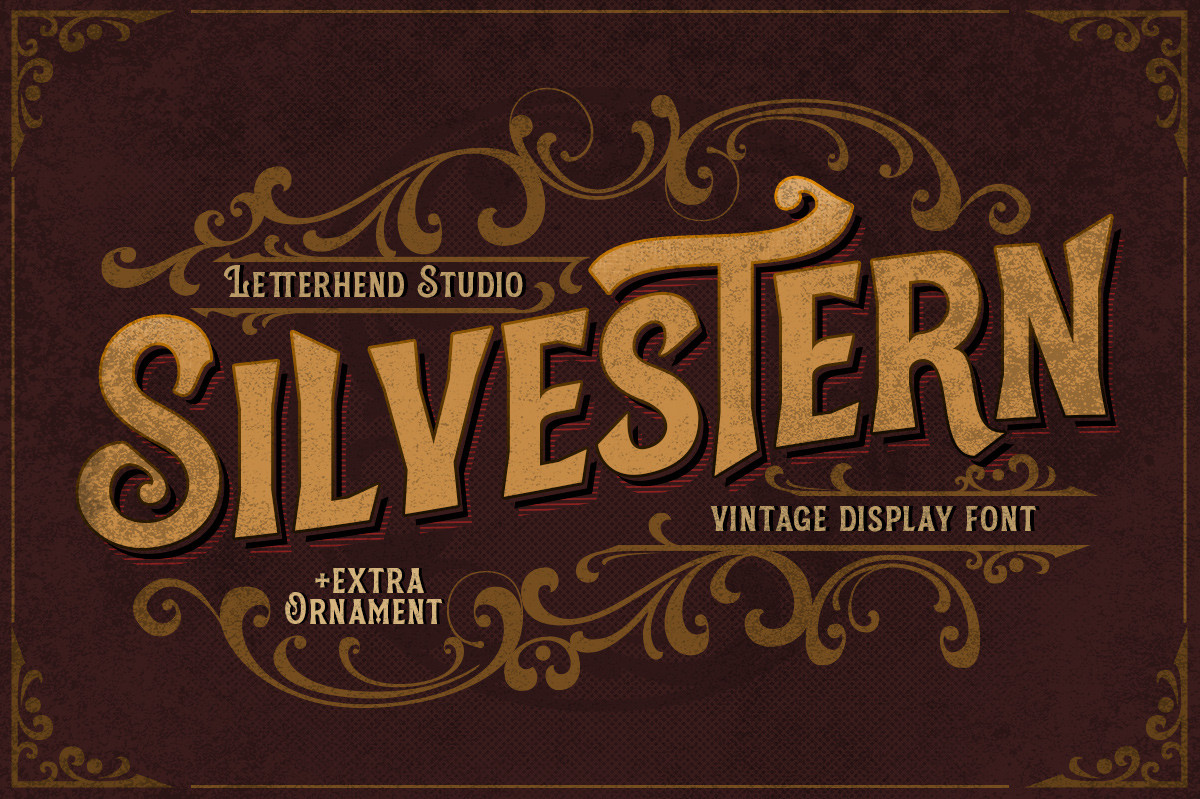
Silvestern Font
Silvestern Font is perfect for New Year's Eve party invitations, celebration event branding, festive marketing campaigns, holiday party planning materials, midnight countdown graphics, champagne brand packaging, year-end corporate celebrations, festive restaurant promotions, holiday entertainment venues, and sparkling social media designs. This celebratory typeface brings glittering sophistication to fireworks display advertising, luxury party planning services, festive hotel marketing, celebration catering companies, and elegant holiday event communications.
Silvestern Font is exciting because it captures the sparkling magic and celebratory elegance of New Year's Eve festivities through its brilliantly crafted letterforms. The font features characters with festive details and celebratory proportions that evoke the glittering atmosphere of midnight celebrations, sparkling champagne toasts, and the hopeful anticipation of new beginnings. Its distinctive construction demonstrates festive sophistication with carefully crafted elements that create an immediate sense of celebration and elegant party atmosphere. The font's celebratory charm and festive authenticity make it perfect for brands seeking to communicate joyful celebration, elegant festivities, and hopeful new beginnings in their visual communications.
The Silvestern Font family includes various celebratory styles: Light, Regular, Medium, Bold, Italic, Sparkling, Glitter, Festive, Condensed, Extended, Elegant, and Celebration variants. Each family member maintains the core festive DNA while offering different levels of celebration for diverse party-themed design applications. The comprehensive font collection ensures consistent celebratory branding across holiday campaigns, festive events, and New Year celebration materials.
Silvestern Font Free Download provides designers with an exceptional tool for creating memorable and festively elegant visual communications. This remarkable typeface seamlessly blends celebratory aesthetics with contemporary functionality, making it ideal for both digital celebration platforms and premium party-themed print materials. The font's carefully crafted festive details and celebratory rhythm create sparkling visual experiences that resonate with audiences seeking joyful celebration, elegant entertainment, and hopeful new year anticipation.
Whether you're creating celebration brand identities, designing festive marketing materials, developing party website headers, or crafting New Year promotional campaigns, Silvestern Font delivers outstanding celebratory appeal and festive sophistication. The font's distinctive sparkling personality excels in celebration logos, festive packaging design, party applications, and holiday projects where celebratory elegance and festive charm are essential.